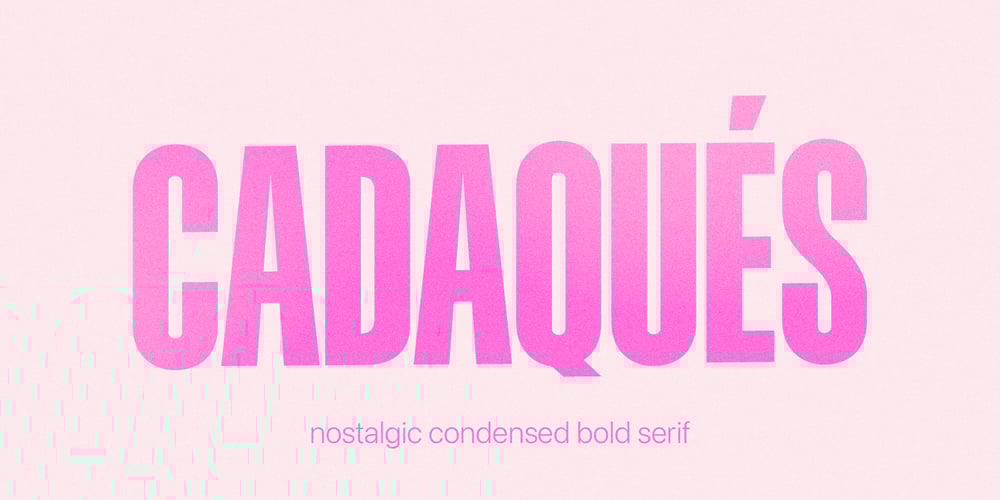
Cadaques Font Family was designed by Dmitrii Chirkov and published by Supfonts. Cadaques contains 1 styles and family package options. Cadaques is a bold, condensed font inspired by the nostalgia and aesthetics of the early 90s. Ideal for advertising, headlines, editorial design, branding, and posters.Cadaques Font Features:- Full Set of standard alphabet and punctuation- PUA Encoded – no special software needed to access extra characters- Multilingual Characters AÁĂÂÄÀĀĄÅÃÆBCĆČÇĊDÐĎĐEÉĚÊËĖÈĒĘẼFGĞĢĠḠHĦIIJÍÎÏİÌĪĮĨJKĶLĹĽĻŁMNŃŇŅÑ OÓÔÖÒŐŌØÕŒPÞQRŔŘŖSŚŠŞȘẞTŤŢȚUÚÛÜÙŰŪŲŮŨVWẂŴẄẀXYÝŶŸỲỸZŹŽŻ